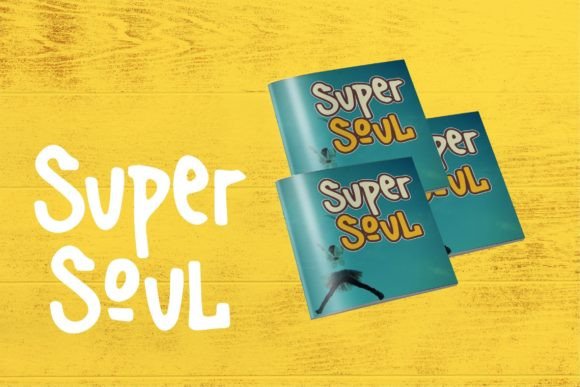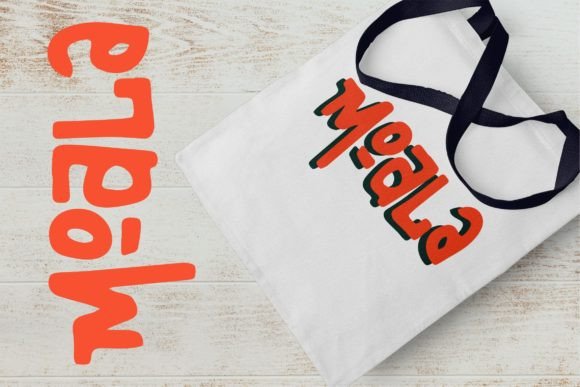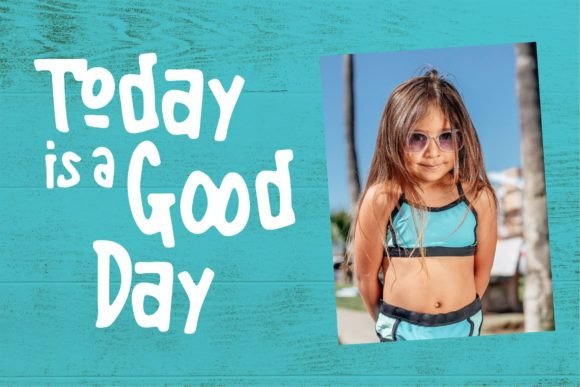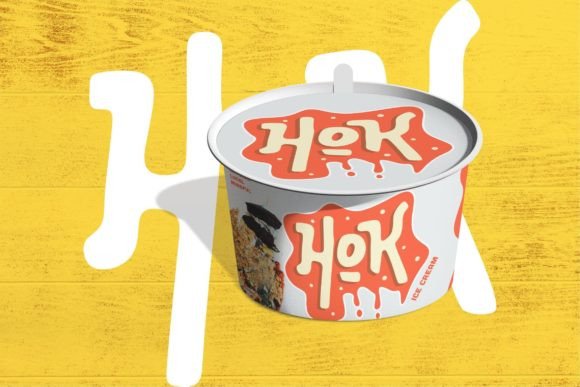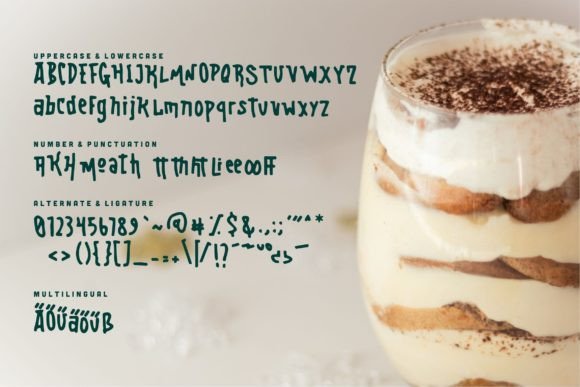
Bokan Font: The Perfect Choice for Playful Designs
Are you looking for a font that can add a touch of playfulness and authenticity to your designs? Look no further than Bokan Font! This cute and colorful display font is perfect for children’s activities, school projects, and any design that needs a fun and lively feel.
What Makes Bokan Font So Special?
Bokan Font is a chunky lettered font that embodies playfulness and authenticity. Its bold and colorful design makes it perfect for grabbing attention and adding a touch of whimsy to your designs. Whether you’re working on a children’s book, a school project, or a craft project, Bokan Font is the perfect choice.
Key Features of Bokan Font
- Cute and Colorful Design: Bokan Font features a bold and colorful design that’s perfect for adding a touch of playfulness to your designs.
- PUA Encoded: This font is PUA encoded, which means you can access all of the amazing glyphs and ligatures with ease.
- Chunky Lettered Font: Bokan Font is a chunky lettered font that’s perfect for adding a bold and playful touch to your designs.
- Playful and Authentic: This font embodies playfulness and authenticity, making it perfect for designs that need a fun and lively feel.
Why Designers and Crafters Love Bokan Font
Designers and crafters love Bokan Font for its versatility and ease of use. This font is perfect for a wide range of design projects, from children’s books and school projects to craft projects and DIY tutorials. With Bokan Font, you can add a touch of playfulness and authenticity to your designs and make them stand out from the crowd.
Tips and Tricks for Getting the Most Out of Bokan Font
- Experiment with Different Colors: Bokan Font is a colorful font, so don’t be afraid to experiment with different colors and combinations.
- Use it with Other Fonts: Bokan Font pairs well with other fonts, so try using it with a sans-serif font for a fun and playful look.
- Add Texture and Patterns: Add texture and patterns to your designs to give them a more playful and authentic feel.
- What is Bokan Font?: Bokan Font is a cute and colorful display font that’s perfect for adding a touch of playfulness and authenticity to your designs.